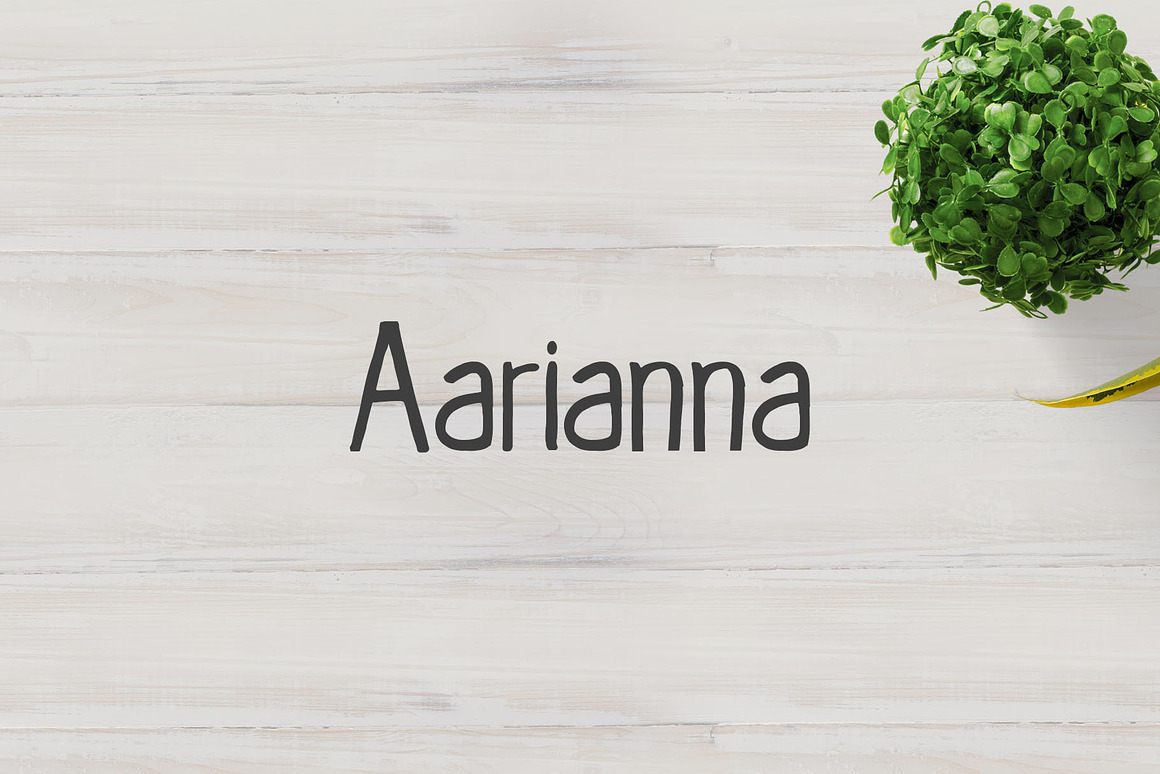
Aarianna Handmade Brush Font Family
This artistic typeface is perfect for creative brands, handmade products, artisan businesses, craft workshops, boutique signage, artistic portfolios, organic brands, personal branding, and expressive design applications.
What makes this font exciting is its handcrafted authenticity combined with brush-stroke elegance, offering designers an organic typeface family that captures artistic expression while delivering handmade sophistication and painterly visual charm.
The Aarianna Handmade Brush font family includes light, regular, medium, bold, textured, script, and artistic variations, providing complete handcrafted design solutions for creating authentic artistic visual identities.
Whether you're developing artisan craft brands or crafting handmade design experiences, Aarianna Handmade Brush Font Family Free Download brings exceptional artistic atmosphere and handcrafted authenticity to every application. This organic typeface combines traditional brush typography with contemporary artistic design, creating letterforms that inspire creativity and celebrate individual expression. The font's handcrafted construction and artistry-ready details make it perfect for brands seeking immediate creative recognition.
Aarianna Handmade Brush Font Family features carefully crafted brush styling with authentic artistic character that conveys genuine creative expertise. Each variation has been designed with natural brush strokes and organic elements that enhance the handmade aesthetic. The font's artistic qualities make it particularly effective for craft businesses and creative applications.
Professional designers choose Aarianna Handmade Brush Font Family for projects requiring authentic artistic credibility and handcrafted atmosphere. Its creative heritage makes it exceptionally well-suited for artisan shops, creative studios, and handmade lifestyle brands. The font's versatile artistic variations allow designers to control the creative intensity, from subtle handcrafted elegance to full artistic expression.
The complete Aarianna Handmade Brush Font Family package offers extensive artistic ornaments and handcrafted decorative elements that enhance the creative aesthetic. Advanced brush features allow designers to create complex artistic effects with multiple handmade-inspired options. This comprehensive creative toolkit ensures designers have everything needed to create authentic artistic communications that celebrate the irreplaceable value of handcrafted creativity and brush-stroke artistic excellence.